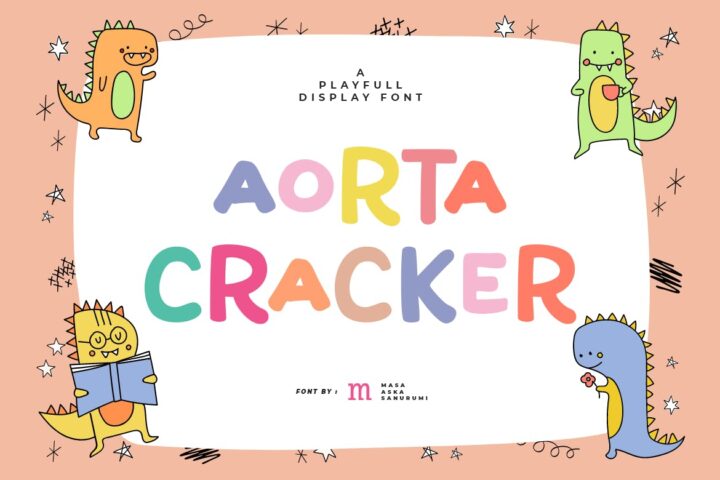
Aorta Cracker | A Playful Display Font
Introducing, Aorta Cracker is a playful display font suitable for your design project needs, such as; birthday theme, social media posts, quotes, overlays on images, posters, print needs, website banners, and more.